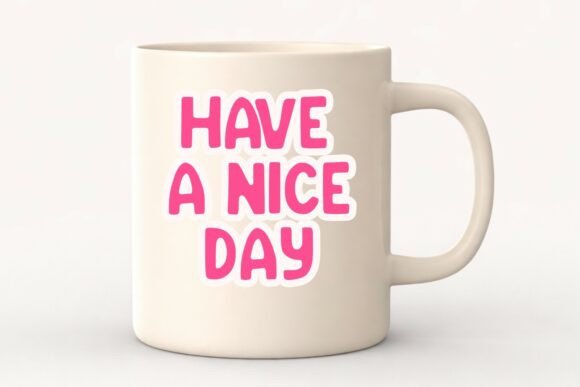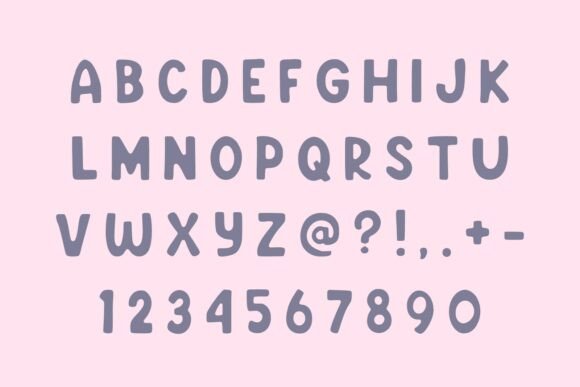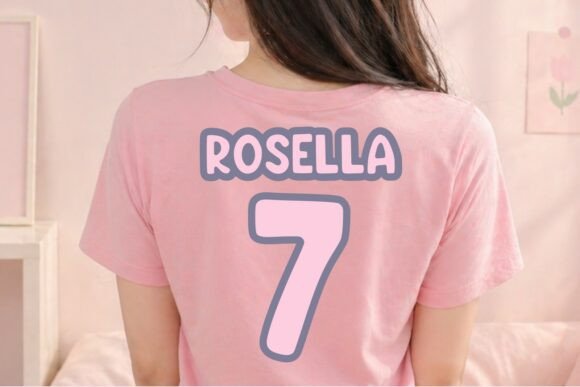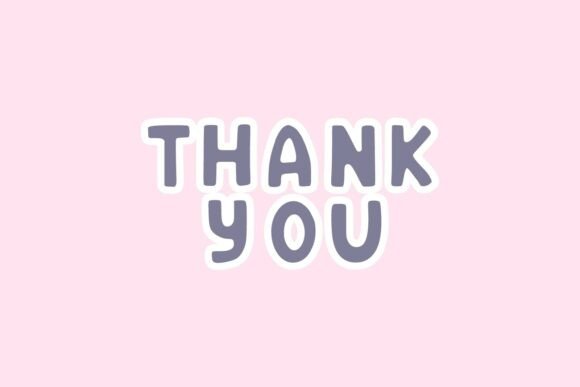
The Joy of Funny Cute Bold Font: Elevate Your Designs with a Playful Twist
Featuring rounded shapes, bold strokes, and a friendly style, Funny Cute Bold Font is a display typeface designed to bring fun and personality to your projects. Its soft and charming look makes it ideal for creating eye-catching and joyful designs with a modern cute aesthetic.
What I Love About Funny Cute Bold Font ✨
- ✅ The playful and cheerful vibe it brings to any design project
- ✅ The rounded shapes and bold strokes that make it both fun and legible
- ✅ The versatility to work well in various design contexts, from kids’ designs to social media graphics
- ✅ The modern cute aesthetic that’s perfect for creating designs that appeal to a younger audience
While Funny Cute Bold Font is an amazing addition to any design project, there are a few things to keep in mind:
- ⚠️ The font may not work well for body text due to its bold and playful nature
- ⚠️ Some characters may not be suitable for professional or formal designs
The Designer Inspiration Behind Funny Cute Bold Font
The story behind Funny Cute Bold Font begins with a designer who wanted to create a typeface that would bring joy and playfulness to design projects. Inspired by childhood memories and the world of kids’ entertainment, the designer crafted a font that’s both fun and legible. The result is a font that’s perfect for creating designs that appeal to a younger audience.
| What is Funny Cute Bold Font best used for? | Funny Cute Bold Font is best used for kids’ designs, branding, posters, social media graphics, packaging, and more. |
| Is Funny Cute Bold Font suitable for professional designs? | While Funny Cute Bold Font is a professional-grade font, it may not be suitable for all professional designs due to its playful nature. Use your discretion and consider the context. |
| Does Funny Cute Bold Font support OpenType features? | Yes, Funny Cute Bold Font supports OpenType features, including glyphs and stylistic alternates. Experiment with these features to add more personality to your designs. |